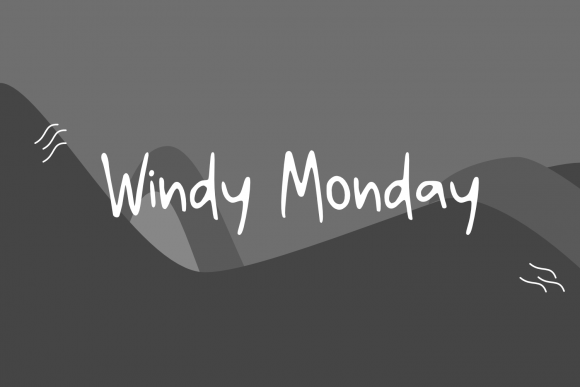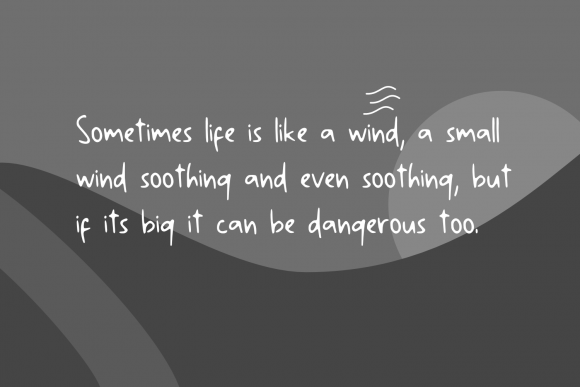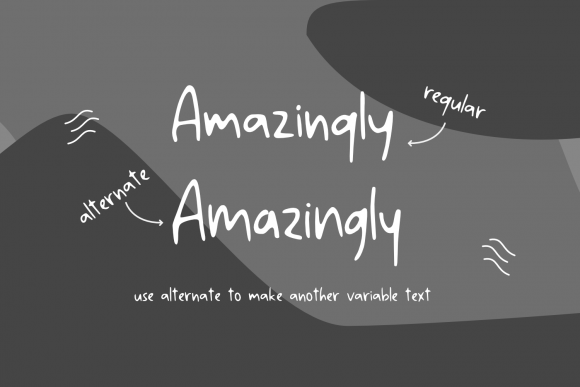
About Windy Monday Font
Windy Monday is a cool, readable and flexible handwritten font. Natural and trendy, this font will turn each of your project ideas into real works of art. Have fun with this beautiful font and explore its endless variations.